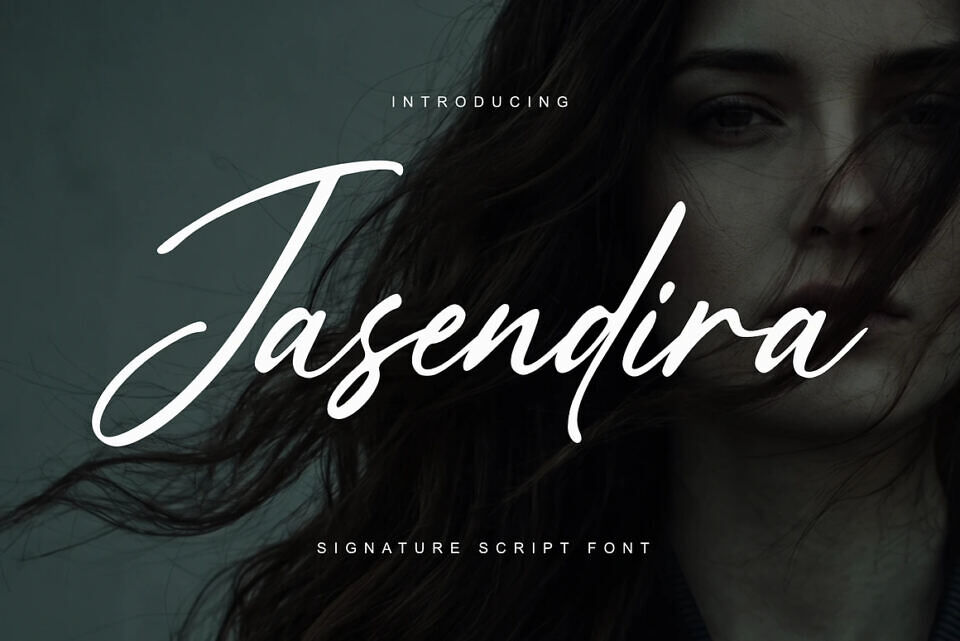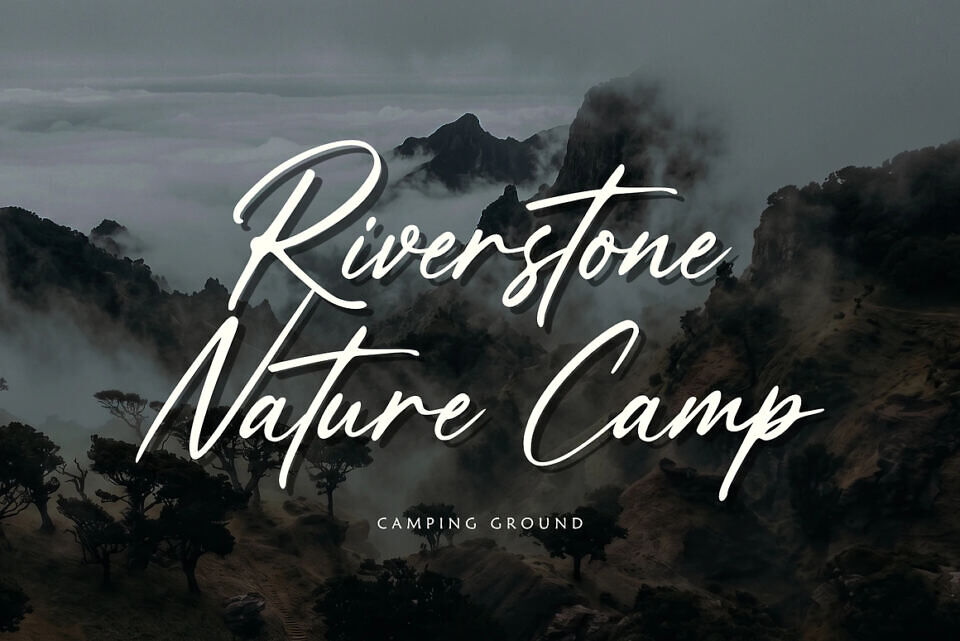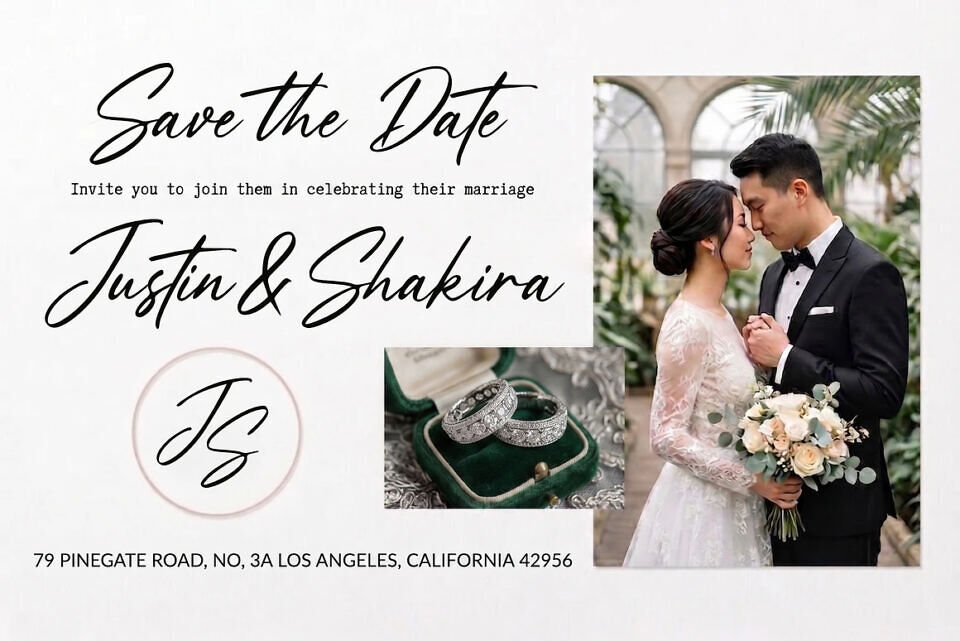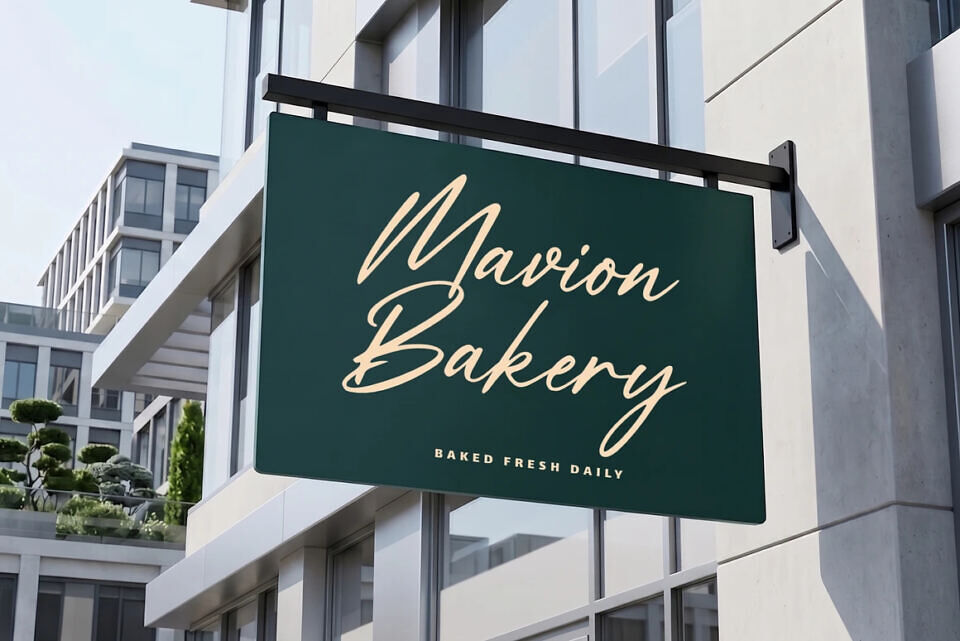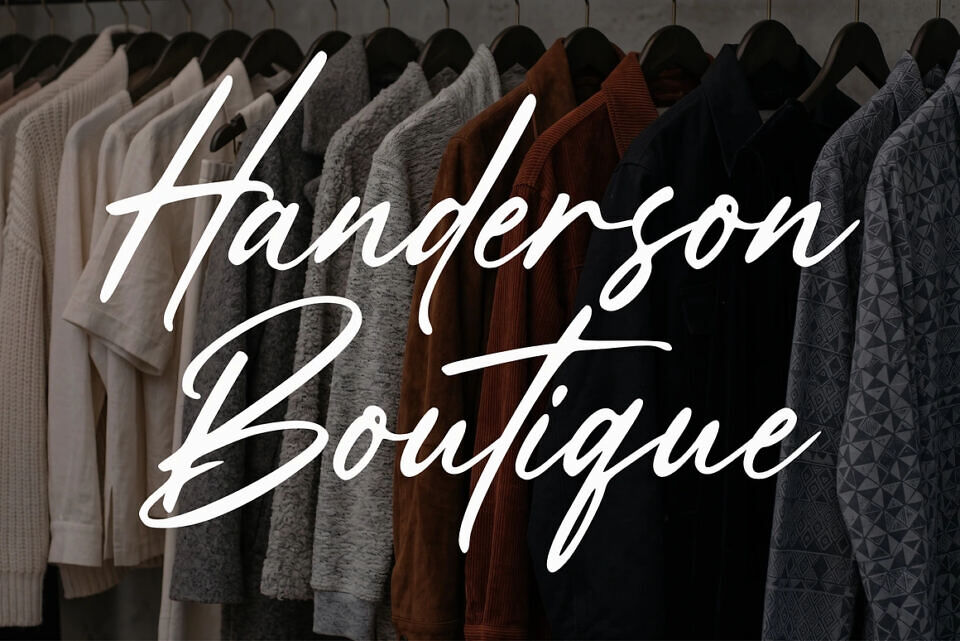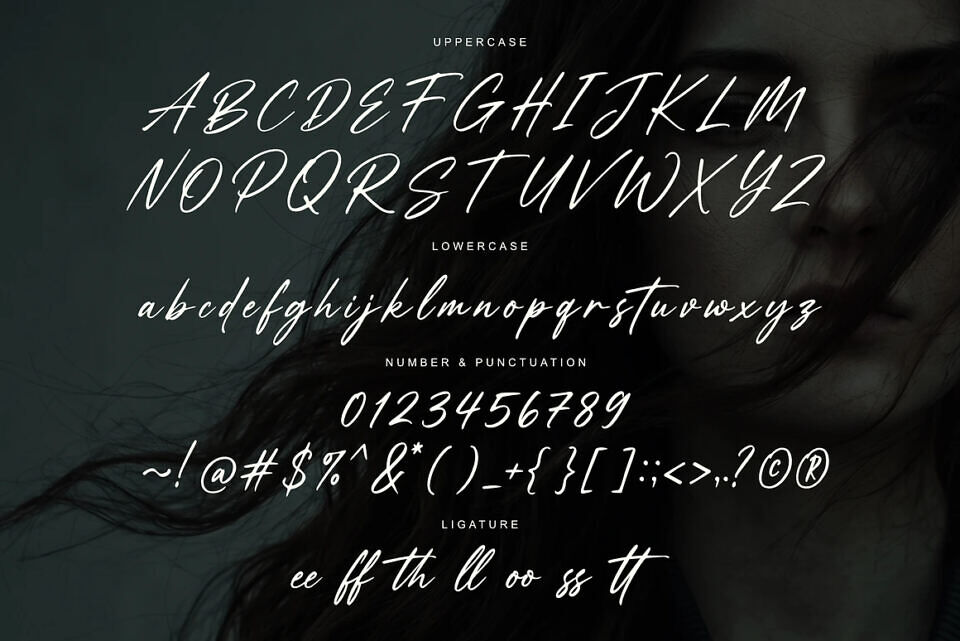
Jasendira Signature Script is an elegant handwritten font with a smooth, flowing signature style. Designed with refined curves and balanced strokes, this typeface delivers a modern, classy, and stylish look across a wide range of creative projects. Its natural rhythm and clean structure make it highly versatile while maintaining a strong visual presence.